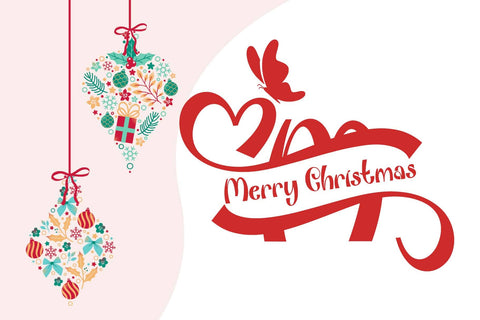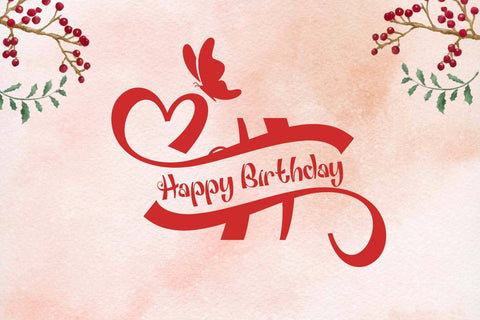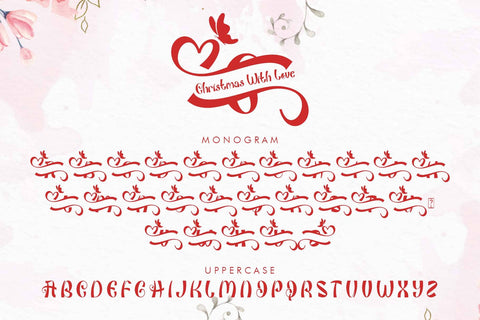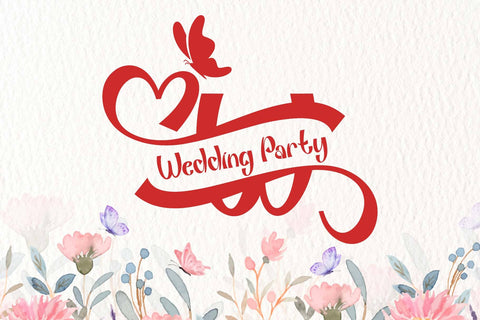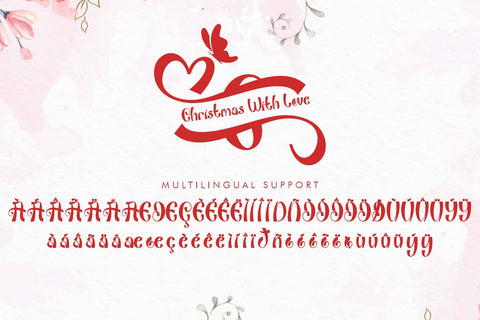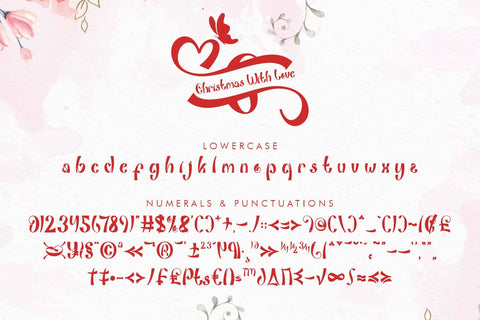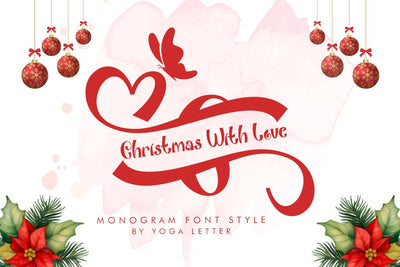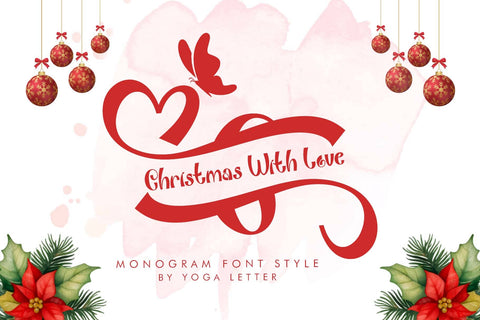
Christmas With Love
"Christmas With Love" is a beautiful and cute monogram font. It features uppercase and lowercase letters, monograms, numerals, punctuations, and multilingual support. It's perfect for Christmas, fall, autumn, Halloween, Valentine's Day, weddings, invitations, winter, summer, Easter, engagements, print, spring, t-shirts, logos, posters, business branding, social media, and more.